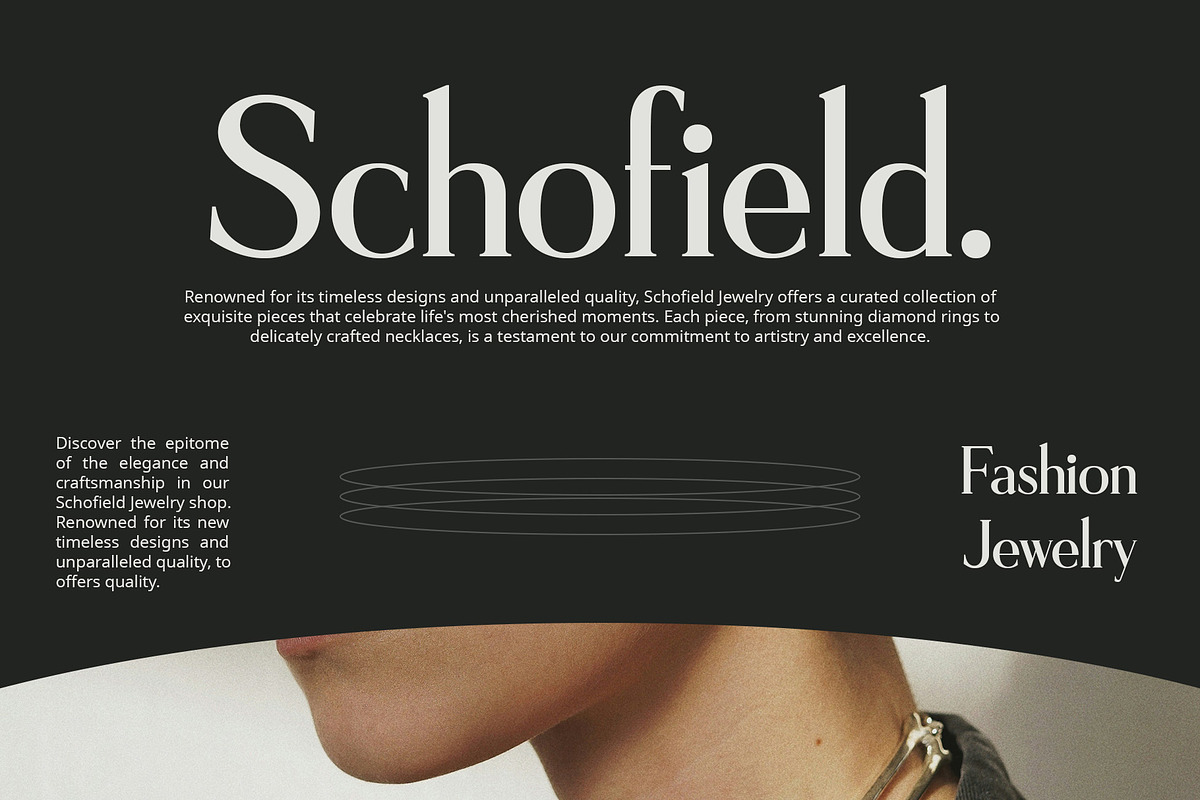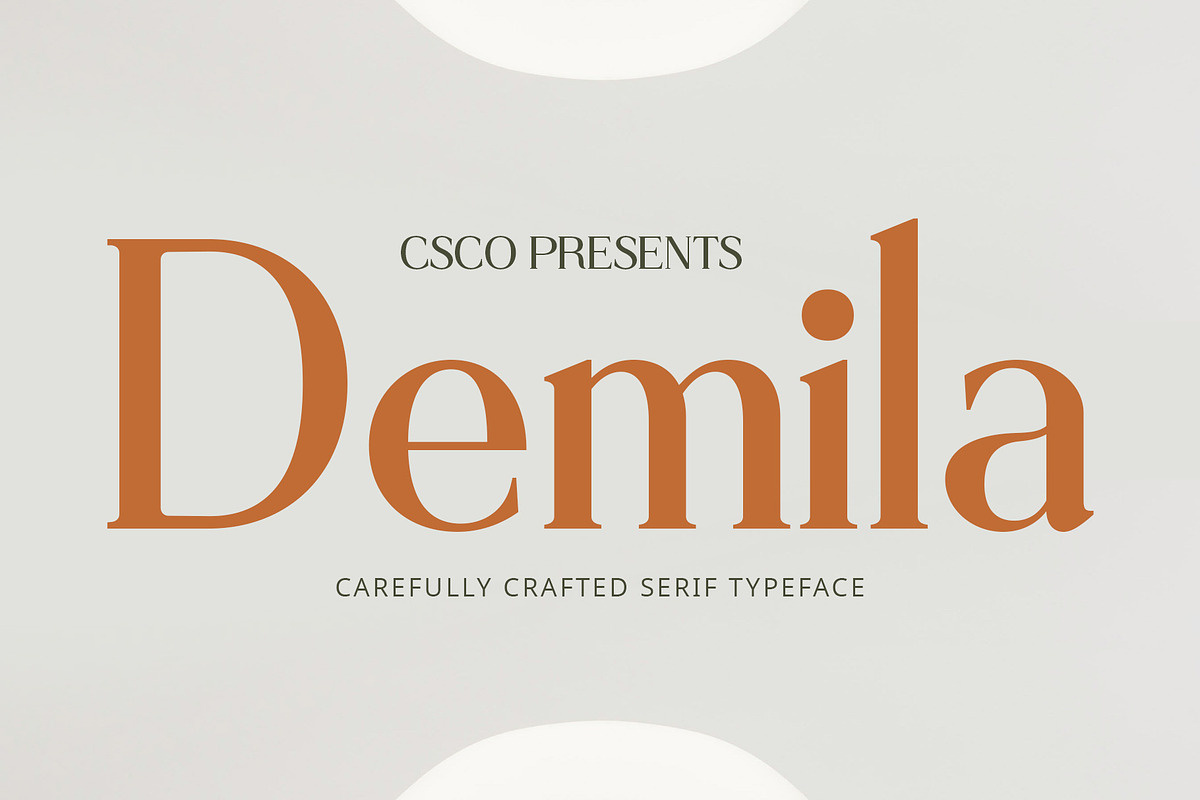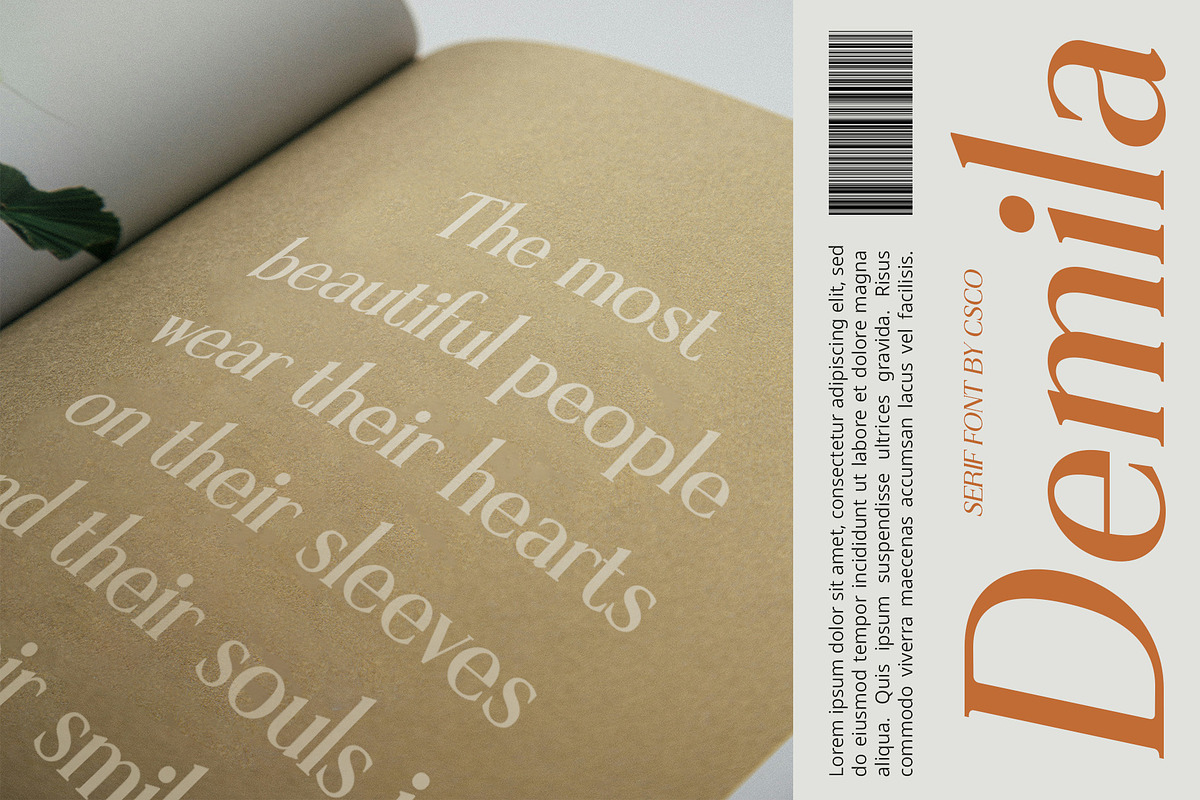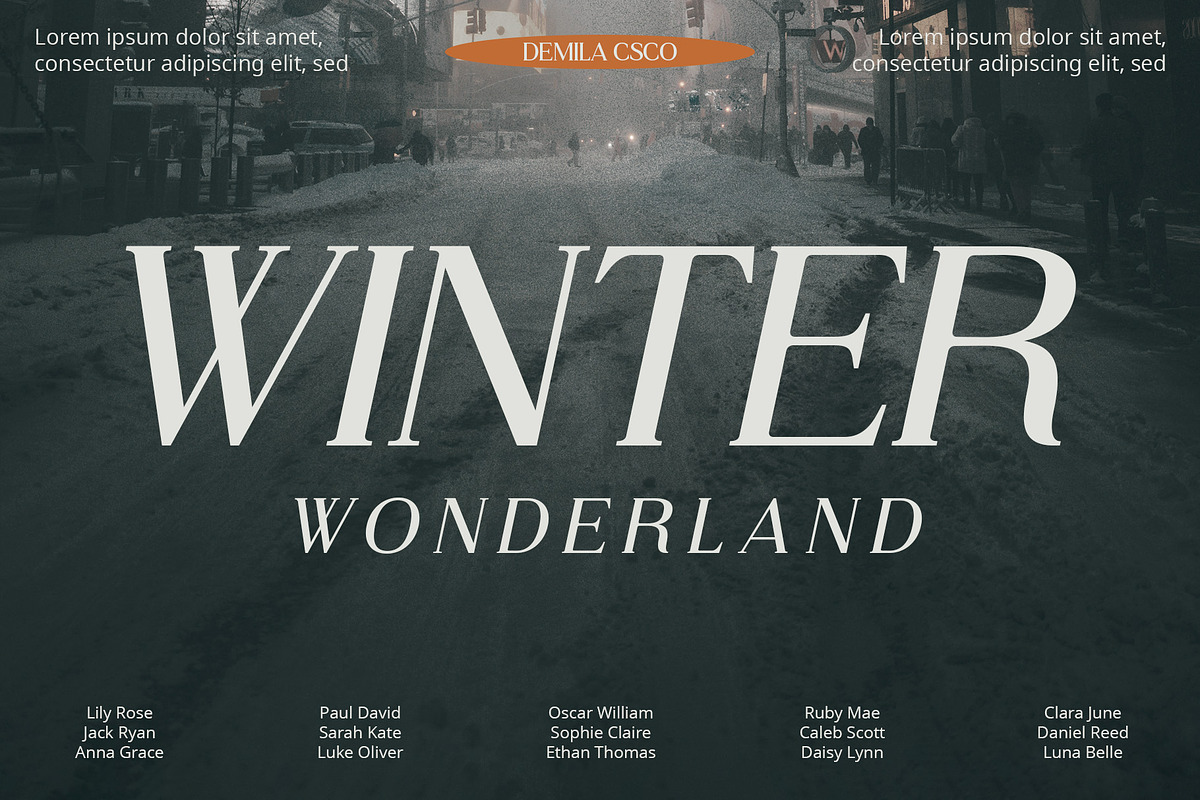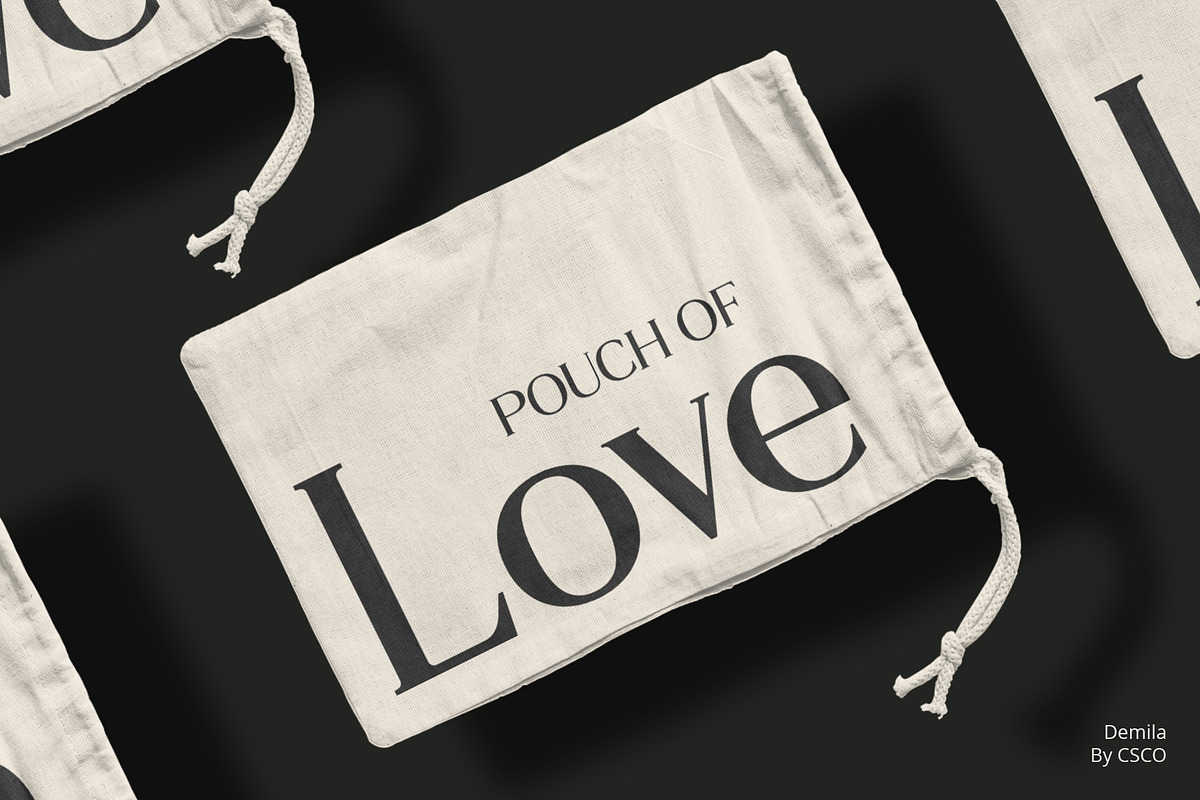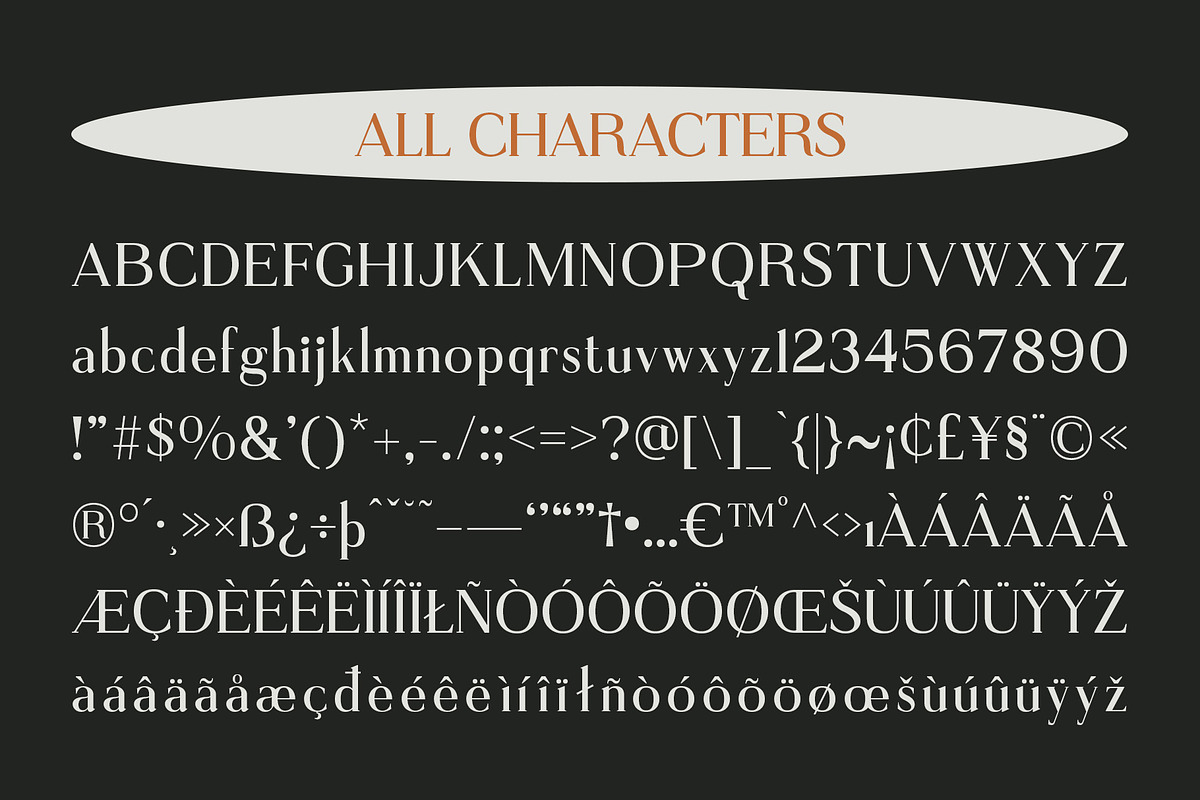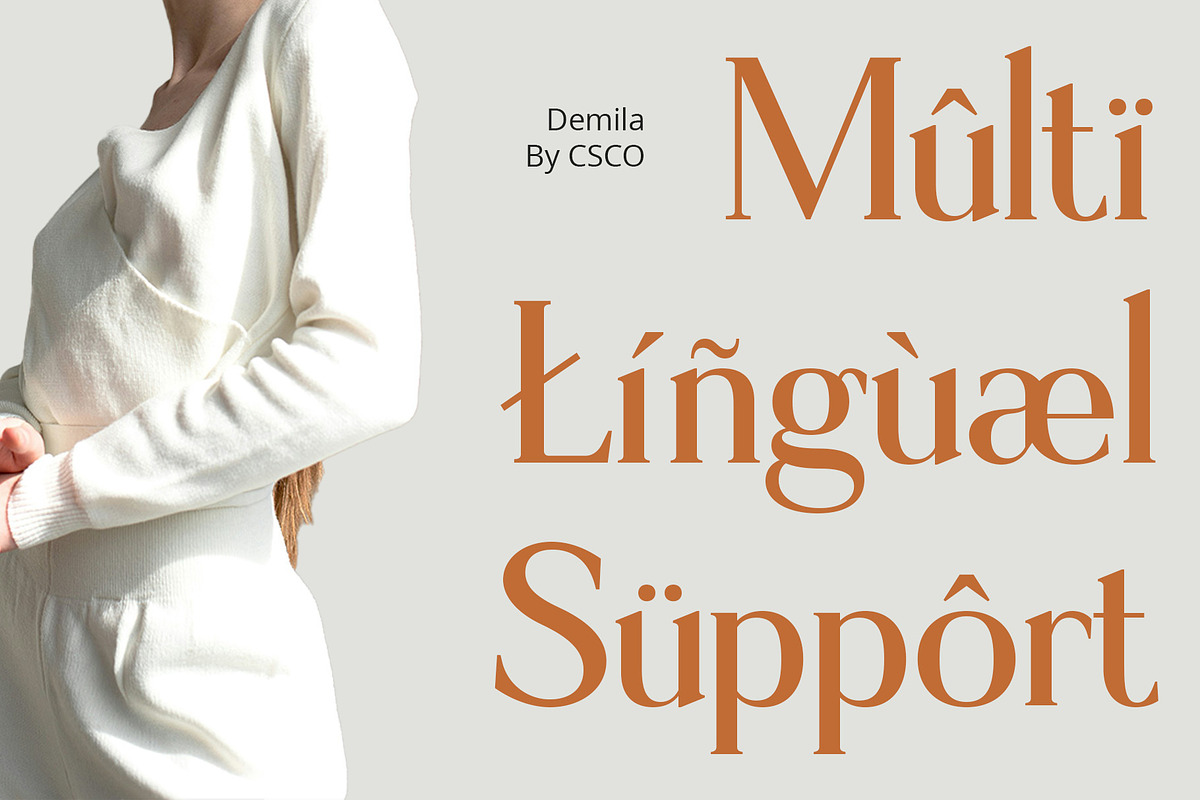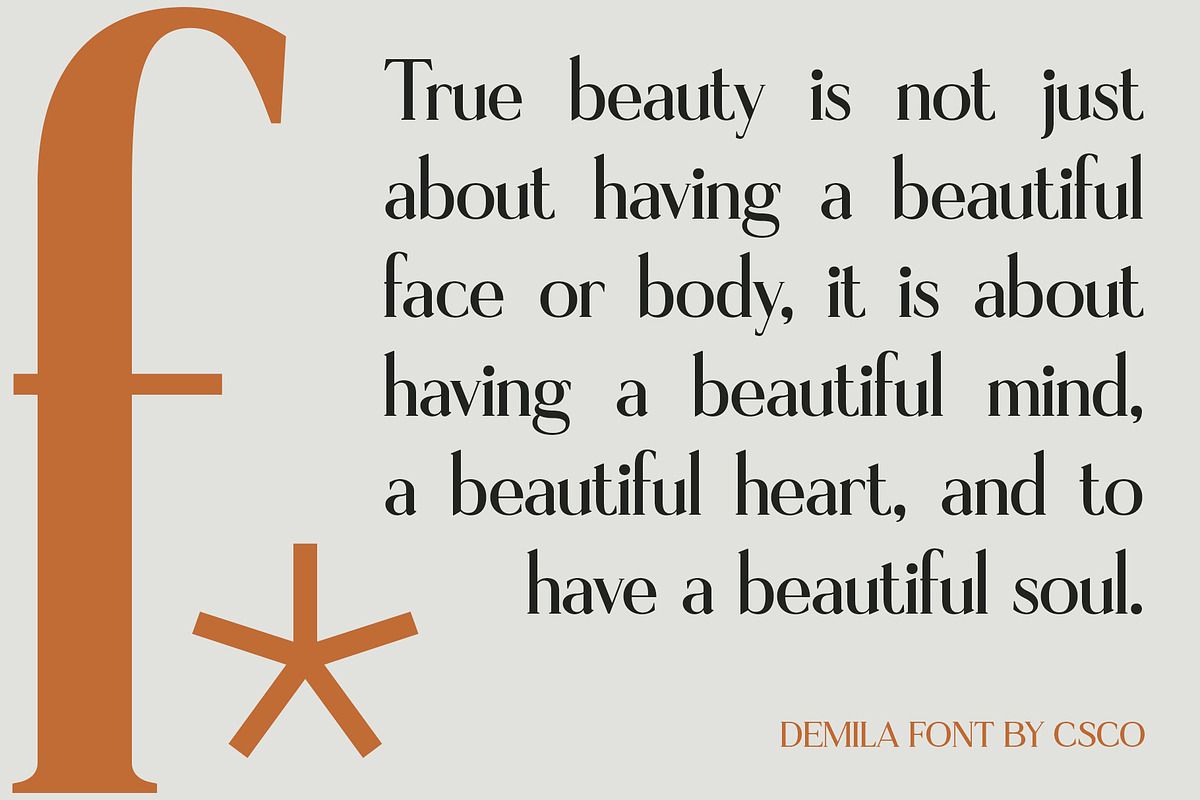
Demila – Modern Font
Demila: Where Elegance Meets Professionalism
Elegant Professional Serif
Demila is a modern serif font with an elegant style, perfect for professional use. Its sleek lines and refined details make it ideal for a wide range of projects, from branding to editorial design.
Modern Serif with Elegant Style
With its clean lines and timeless elegance, Demila offers a fresh take on traditional serif fonts. The modern design creates a sophisticated and professional look, perfect for corporate communications, logos, and more.
Perfect for Professional Use
Whether you’re designing a business card or creating a website, Demila is sure to make a lasting impression. Its elegant style and professional appeal make it versatile and suitable for a variety of applications.
Versatile and Easy to Use
Despite its distinctive appearance, Demila is versatile and easy to use. The font works well in both large and small sizes, making it suitable for headlines, body text, and everything in between. With its blend of modern design and elegant style, Demila adds a touch of sophistication to any project.